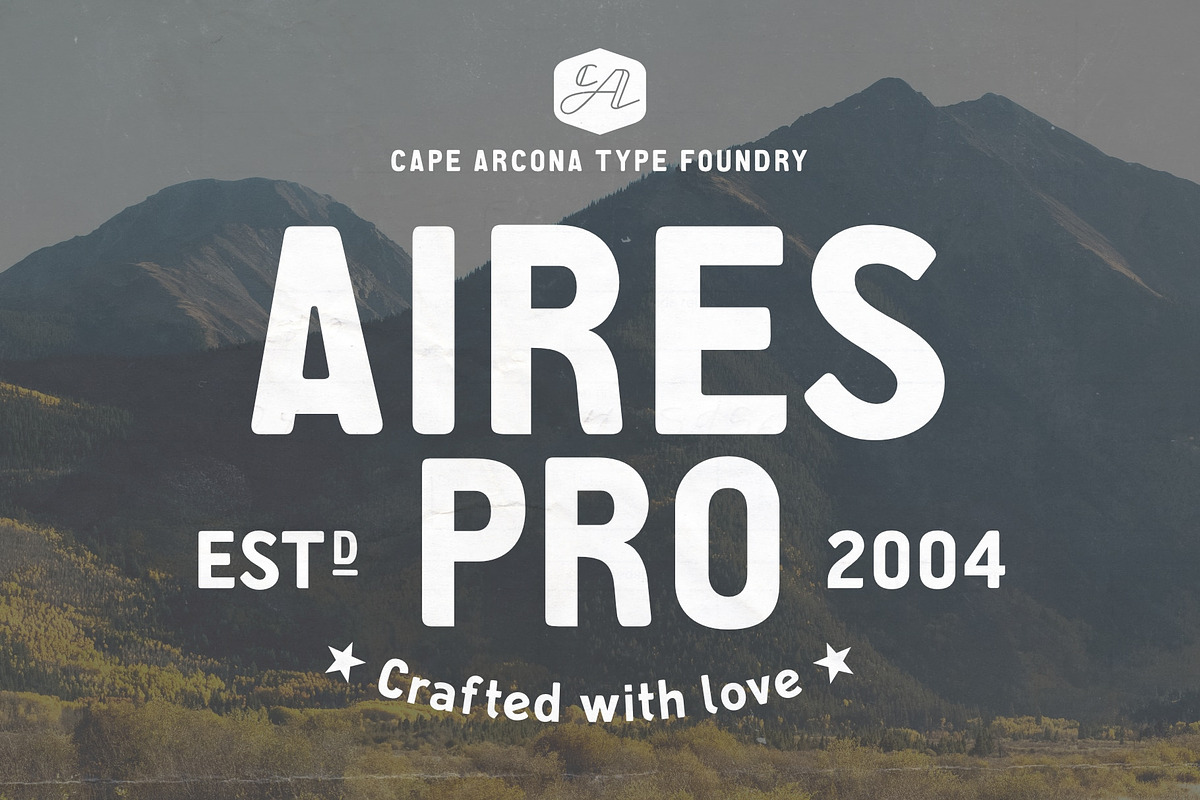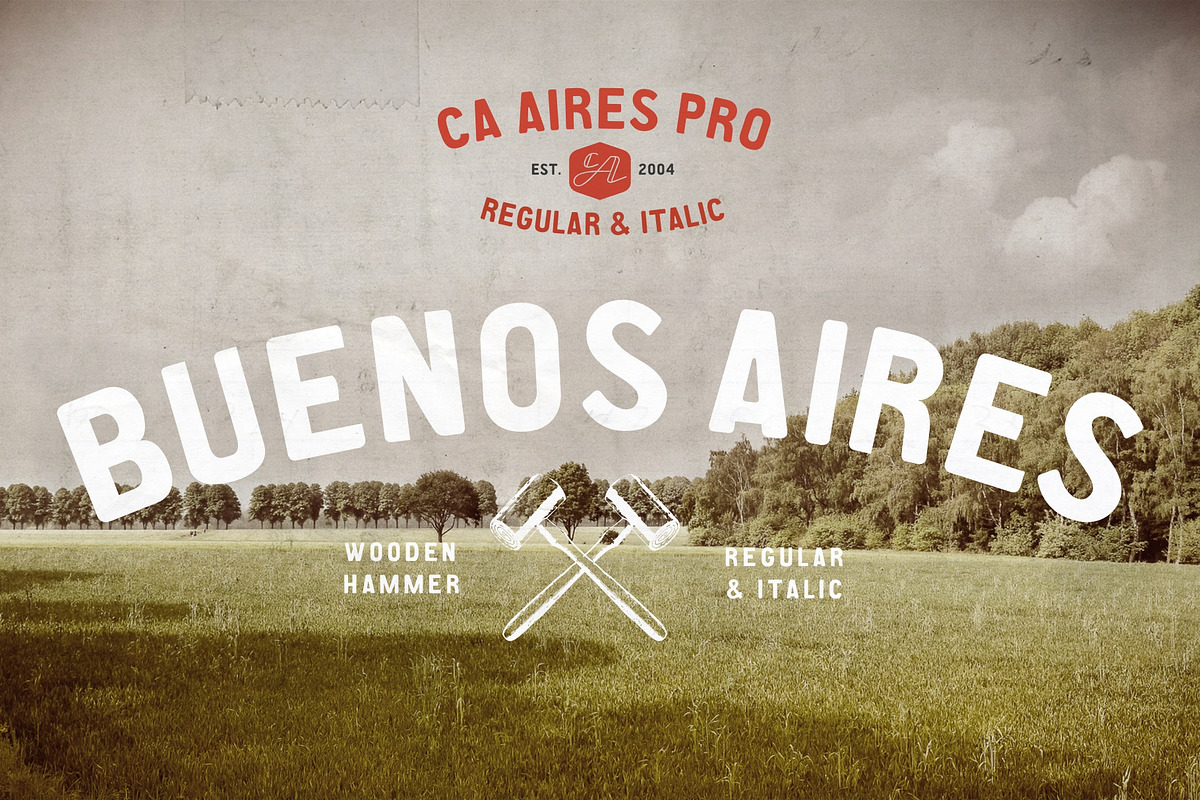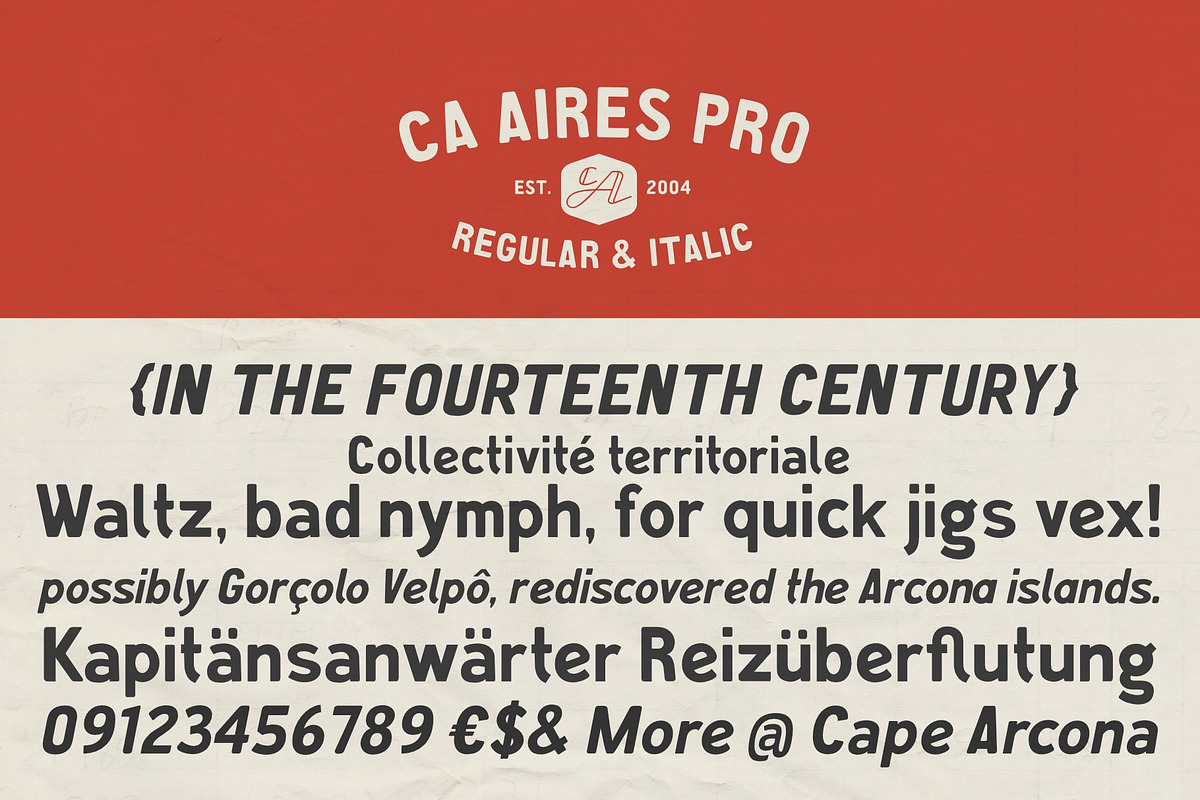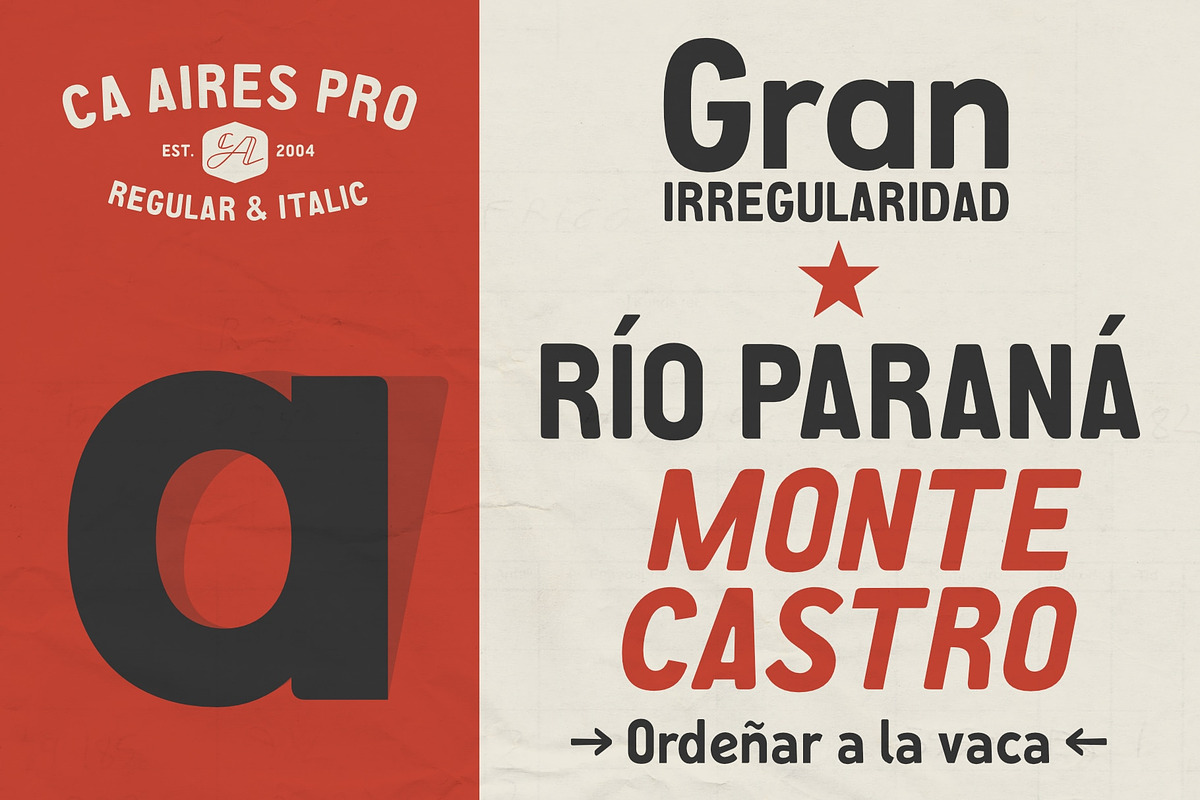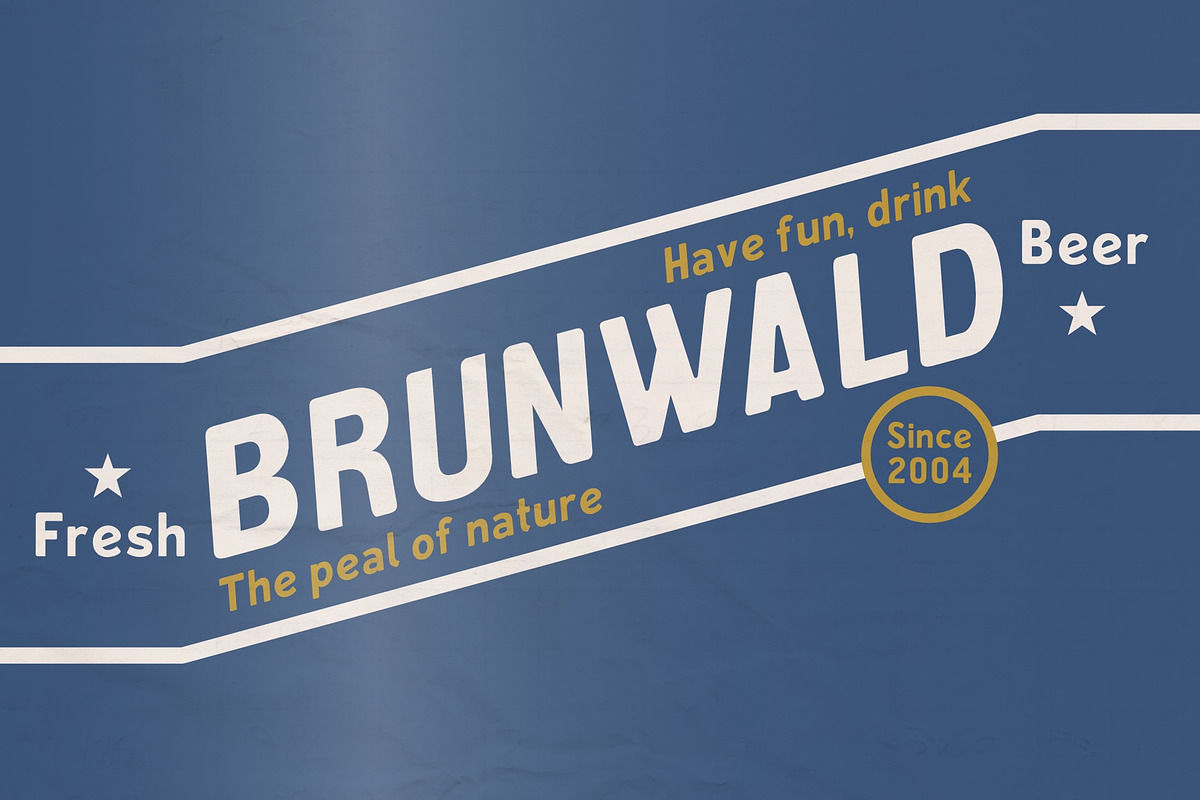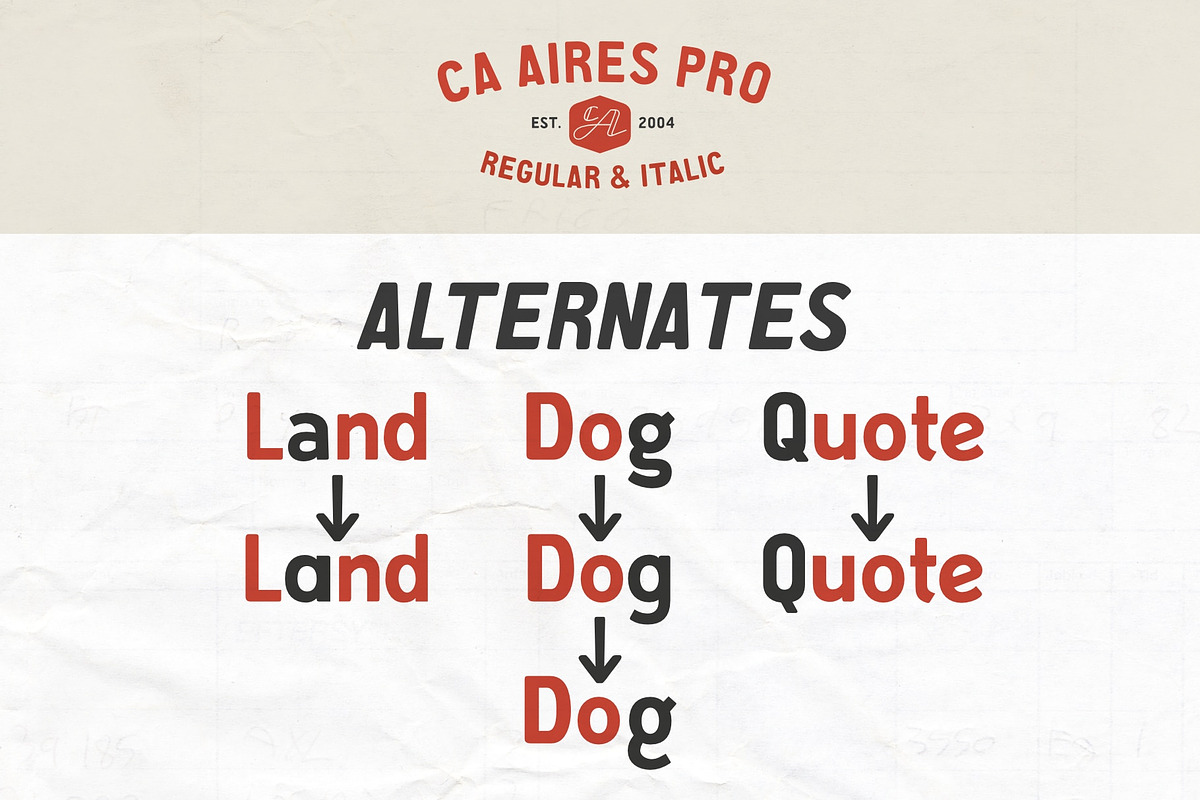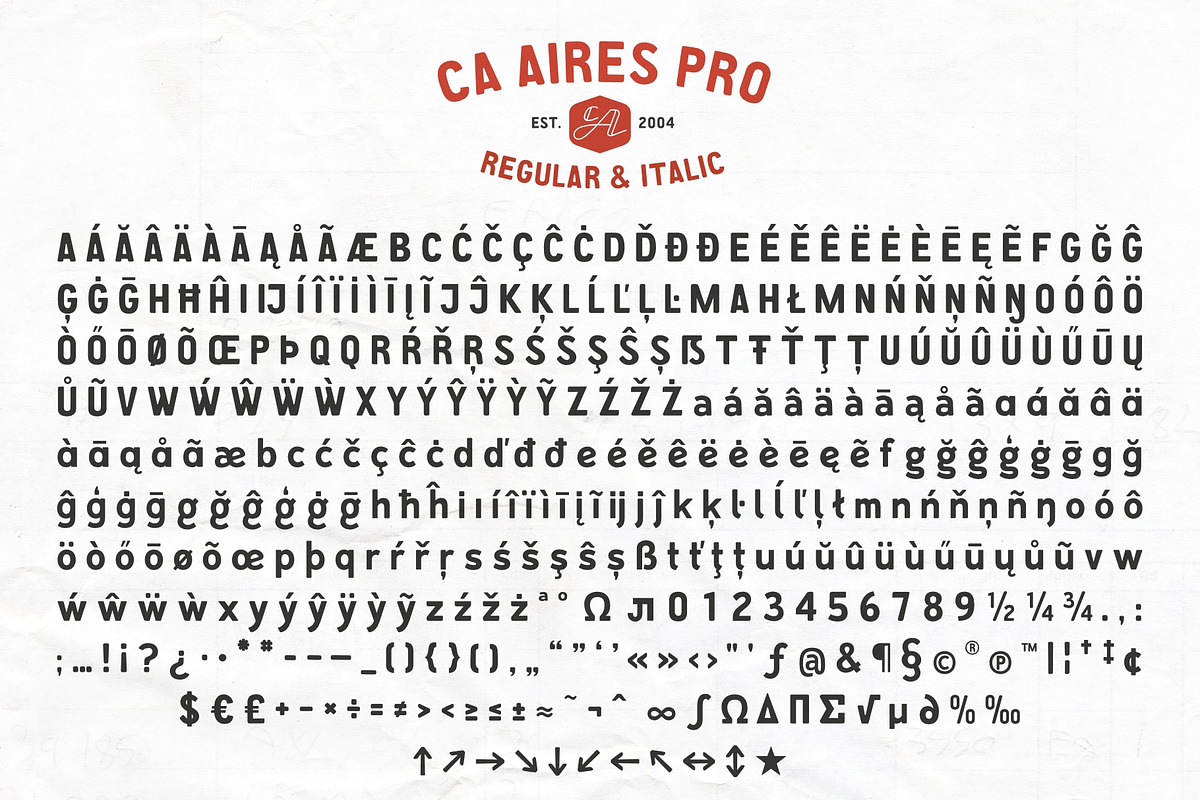
CA Aires Pro
CA Aires Pro is inspired by a vintage 1930s postcard, where the simple yet striking words “BUENOS AIRES” appeared beside the stamp. That small typographic detail sparked the creation of what would become one of Cape Arconas most beloved free fonts.
Originally designed as an uppercase-only typeface, its clean lines and playful character quickly caught the attention of designers. As interest grew—especially among Spanish-speaking users—we received frequent requests for a more complete character set. This led to the development of the “Pro” version, which introduced lowercase letters while carefully preserving the charm of the original design.
To expand creative possibilities, we later added an italic style, bringing expressive energy to the family without compromising its unique personality.